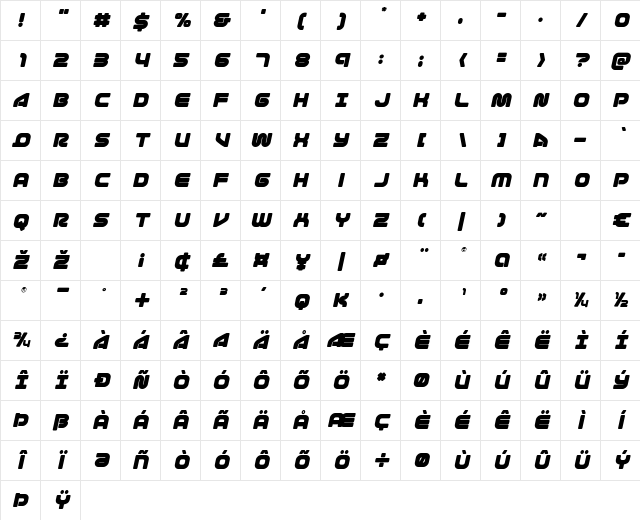
1st Enterprises Italic Italic
Complete 1st Enterprises Italic Italic glyph index. Displaying only characters natively supported by 1st Enterprises Italic Italic font.
Design Context for 1st Enterprises Italic
1st Enterprises Italic is a composed and adaptable typeface that performs quietly and consistently across a wide range of design contexts. The slanted form adds forward momentum and visual energy.